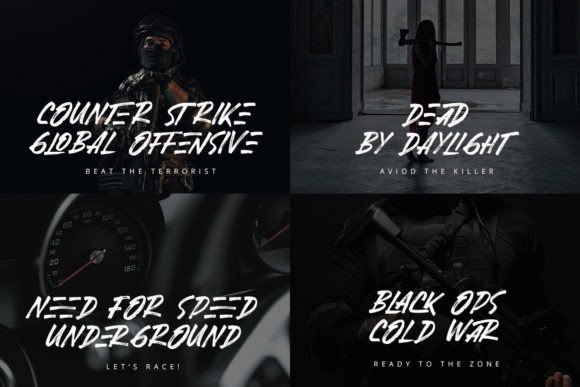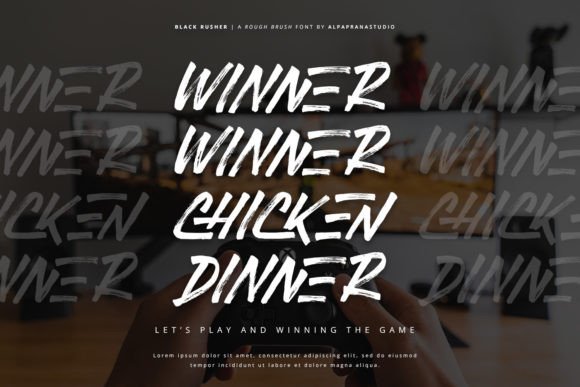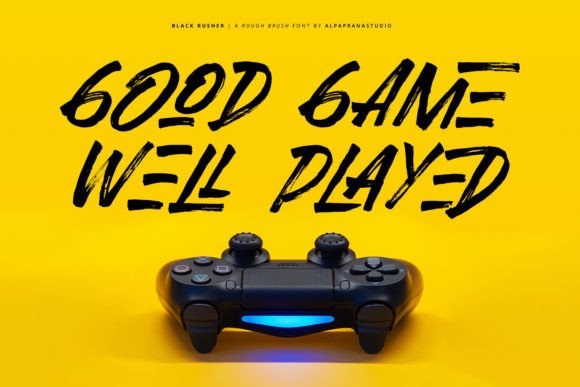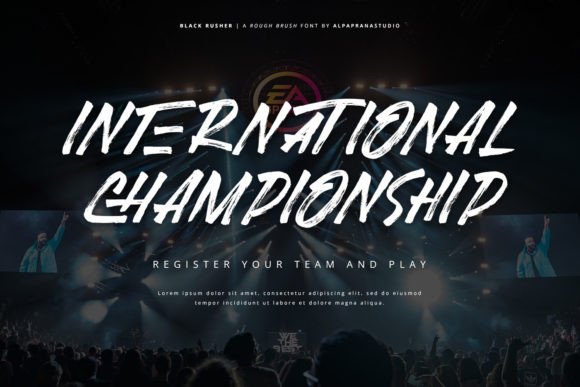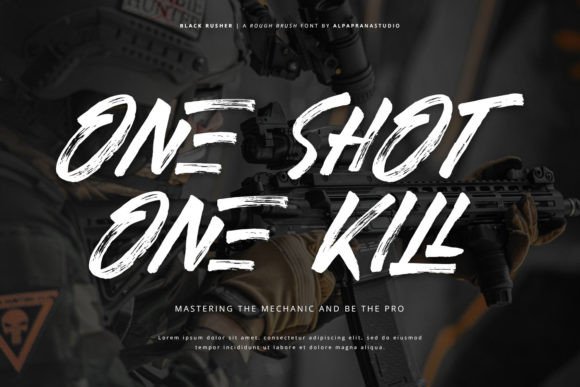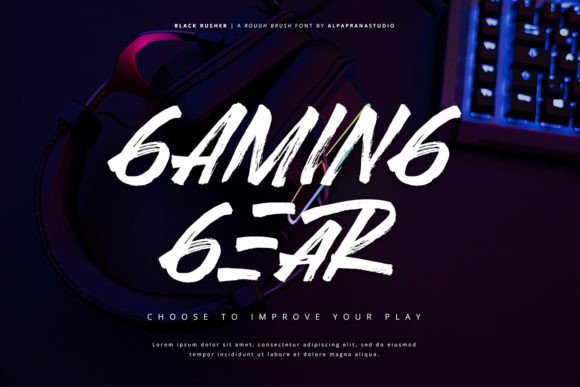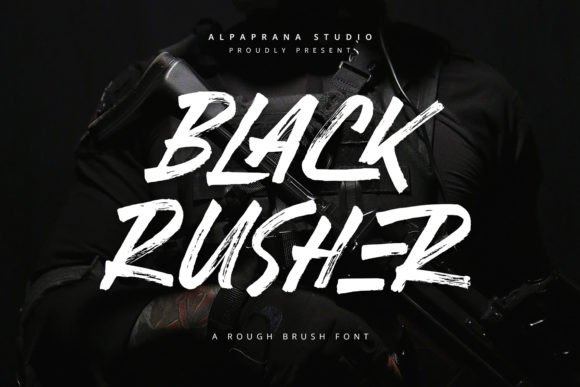
Introducing Black Rusher Font: Unleash Your Creativity with a Rustic Brush Font
Are you tired of using the same old fonts in your designs? Do you want to add a touch of personality and charm to your projects? Look no further than Black Rusher Font, a rough, rustic brush font that’s bursting with character and charm. In this article, we’ll explore the unique features of Black Rusher Font and how it can elevate your designs to the next level.
The Charm of Hand-Drawn Lettering
Black Rusher Font is inspired by the beauty of hand-drawn lettering. Its textured strokes and uneven lines capture the essence of a brush pen or a marker, giving your designs an organic and earthy feel. The font’s bold and confident presence commands attention, making it perfect for designs that require a statement piece. Whether you’re working on a logo, a poster, or a packaging design, Black Rusher Font is sure to make your project stand out.
Rebellious and Free-Spirited
Black Rusher Font is not just a font – it’s an attitude. It’s perfect for designers and crafters who want to add a touch of rebelliousness to their projects. The font’s rough and rustic texture gives it a laid-back, DIY vibe that’s perfect for designs that require a bit of edge. Whether you’re working on a project for a music band, a fashion brand, or a lifestyle magazine, Black Rusher Font is sure to bring the right attitude to your design.
Black Rusher Font is perfect for designers and crafters who want to add a personal touch to their projects. Whether you’re working on a digital design or a handmade craft, this font is sure to inspire your creativity. Here are just a few ways you can use Black Rusher Font:
- Logos and branding: Use Black Rusher Font to create a bold and memorable logo that stands out from the crowd.
- Posters and flyers: Add a touch of personality to your posters and flyers with Black Rusher Font’s unique texture and charm.
- Packaging design: Use Black Rusher Font to create eye-catching packaging that reflects your brand’s personality.
- Handmade crafts: Add a personal touch to your handmade crafts, such as journals, cards, and scrapbook pages, with Black Rusher Font.
Tips for Using Black Rusher Font
Here are a few tips for getting the most out of Black Rusher Font:
- Experiment with different sizes: Black Rusher Font looks great in large sizes, but it can also be used for smaller text. Experiment with different sizes to find the perfect fit for your design.
- Pair it with other fonts: Black Rusher Font pairs well with other fonts, especially sans-serif fonts. Try pairing it with a clean and simple font to create a striking contrast.
- Use it for headlines: Black Rusher Font is perfect for headlines and titles. Use it to add a touch of personality to your text and make it stand out.
Black Rusher Font is a unique and versatile font that’s perfect for designers and crafters who want to add a touch of personality to their projects. With its textured strokes, uneven lines, and bold presence, this font is sure to make your designs stand out. And with PUA encoding, you can access all of the glyphs and swashes with ease. So why settle for a boring, generic font when you can use Black Rusher Font to unleash your creativity and bring your designs to life?
Whether you’re a seasoned designer or a crafty DIY enthusiast, Black Rusher Font is a must-have font in your collection. So go ahead, get creative, and see what amazing designs you can come up with using Black Rusher Font!